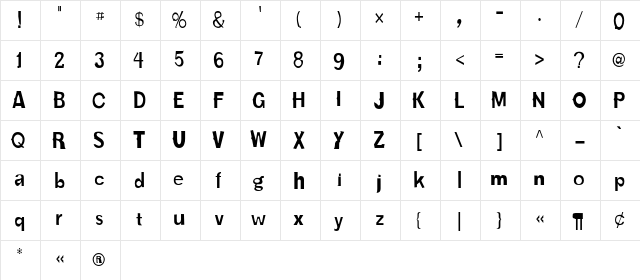
Karloff Regular
Design Context for Karloff Typeface
Karloff is a composed and adaptable typeface that performs quietly and consistently across a wide range of design contexts.
Pro Tip: Use Karloff in both headline and body roles to test its range before committing to a single application.